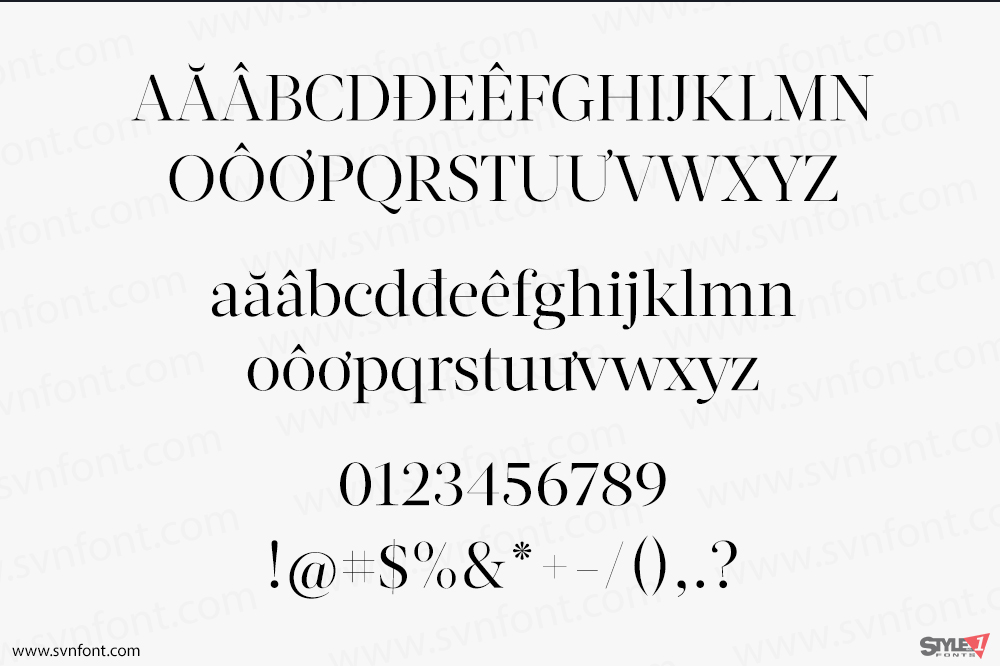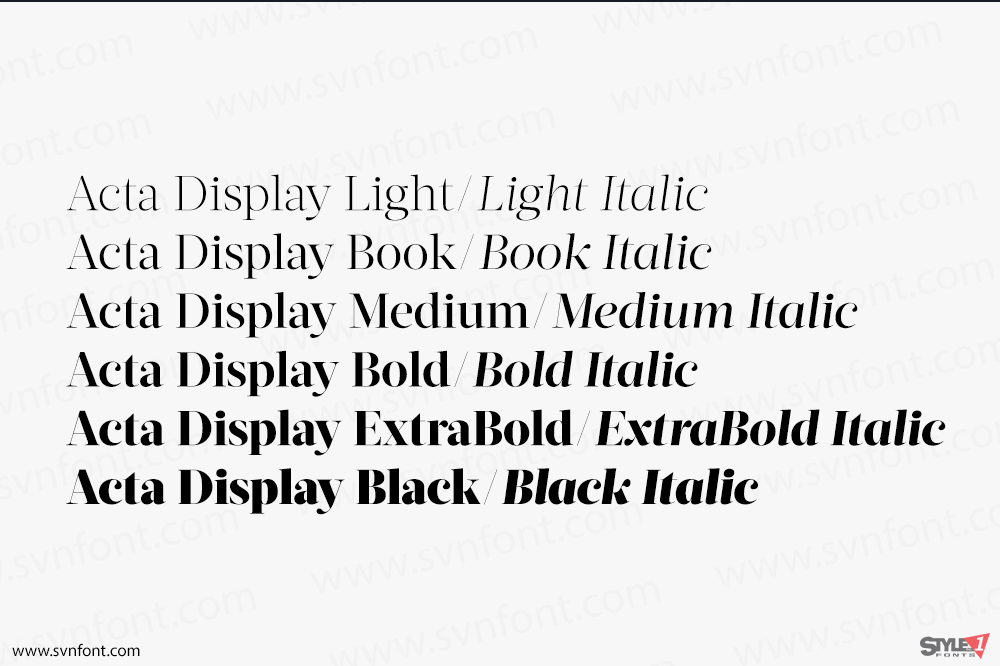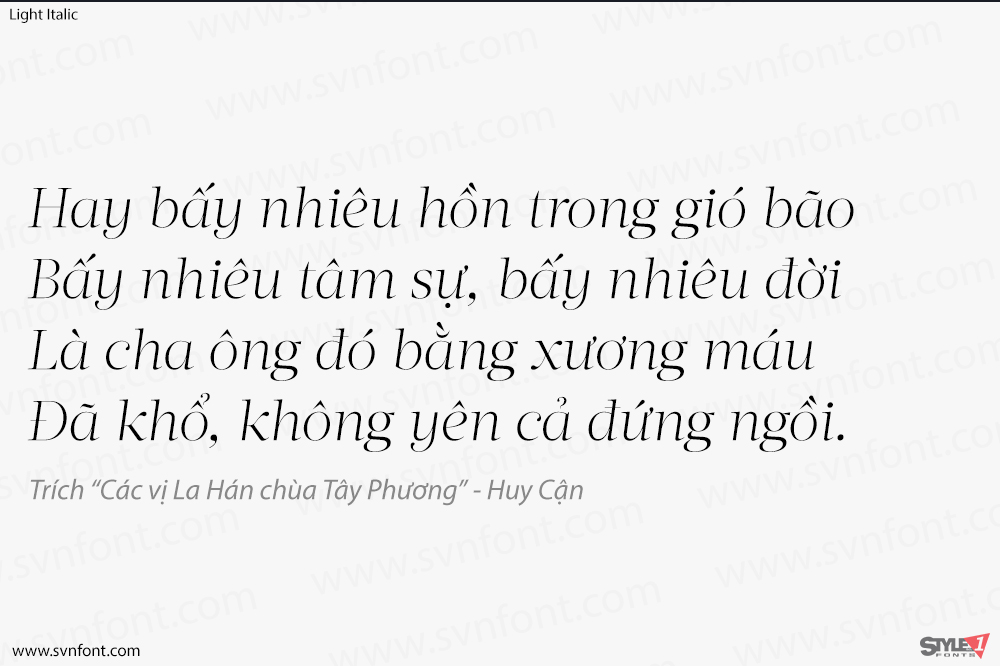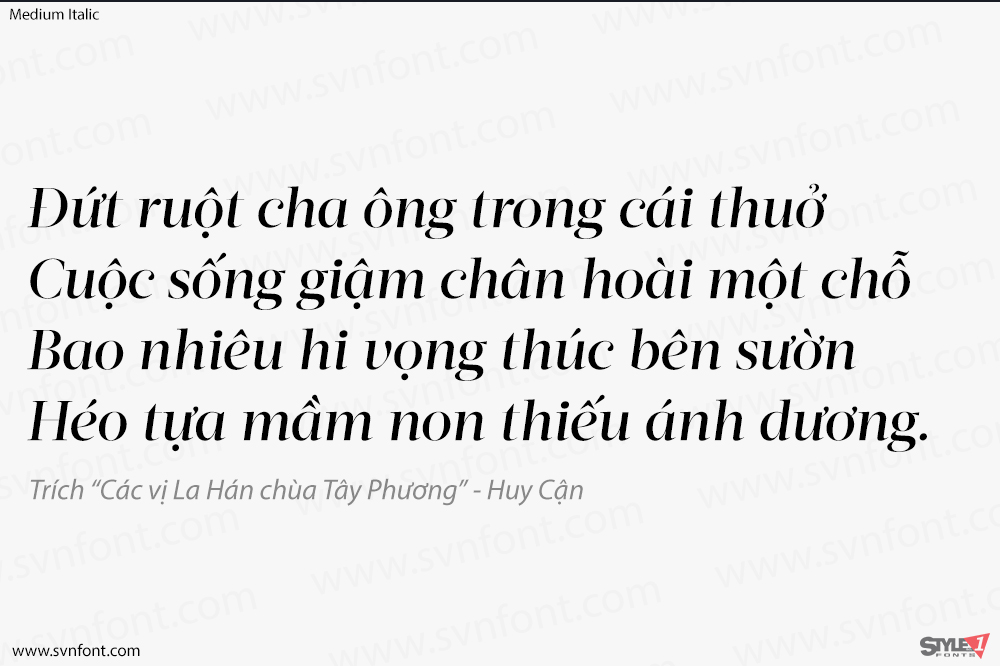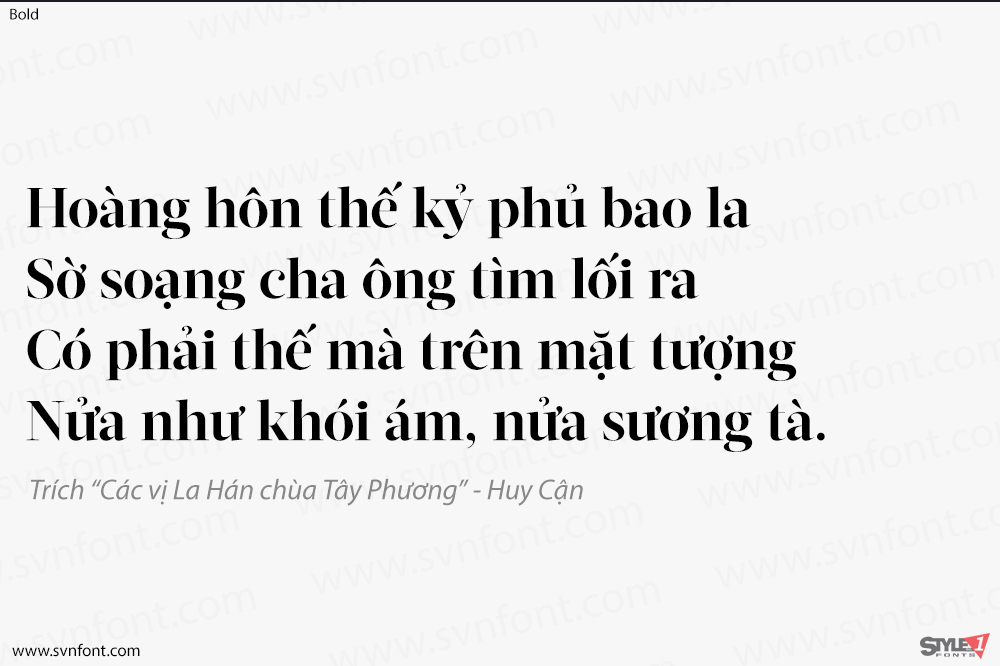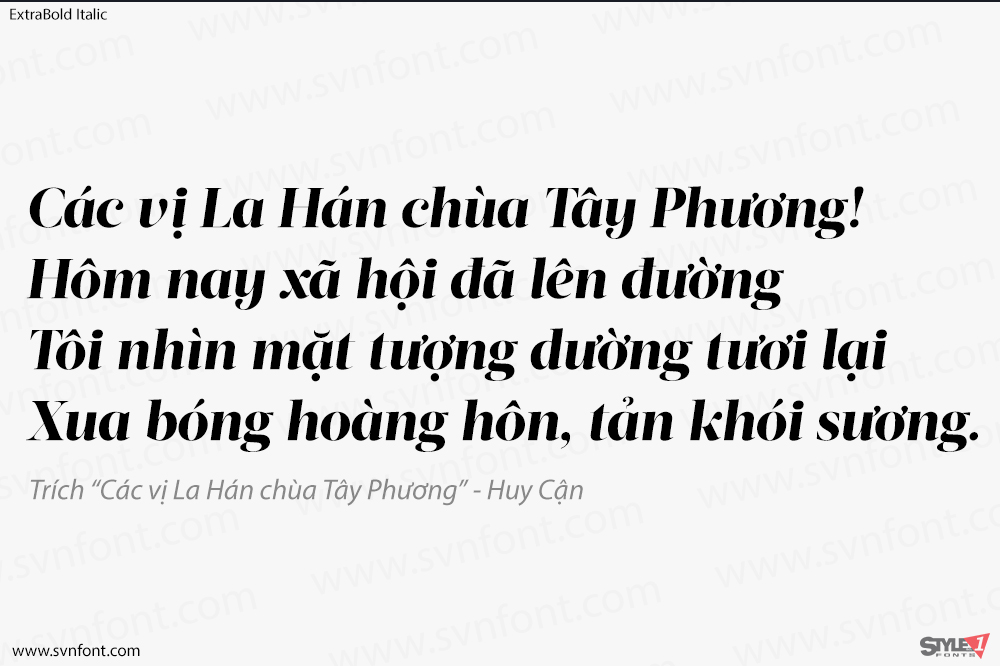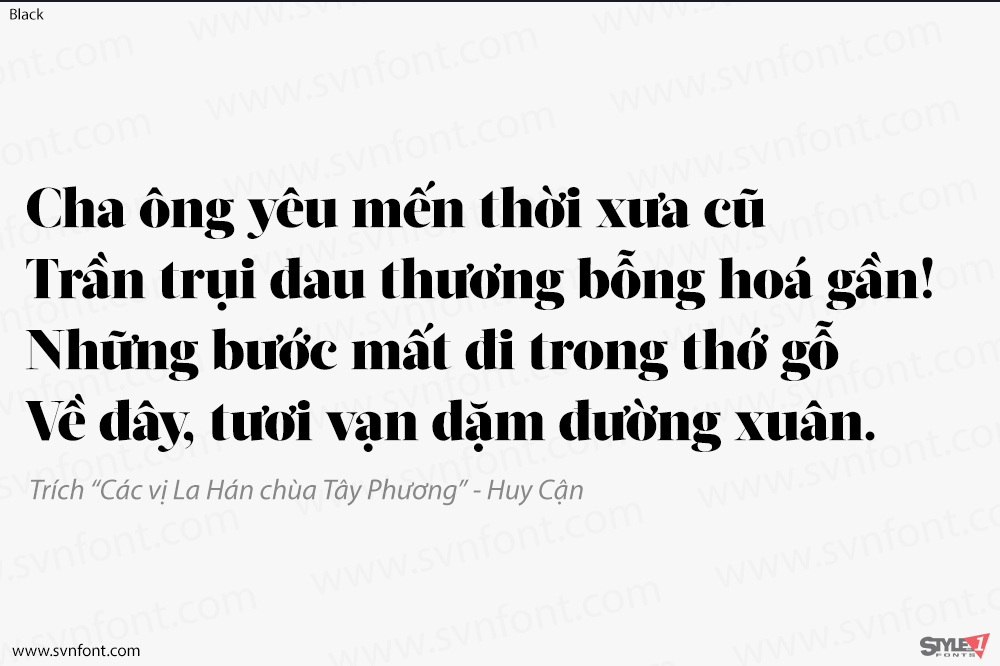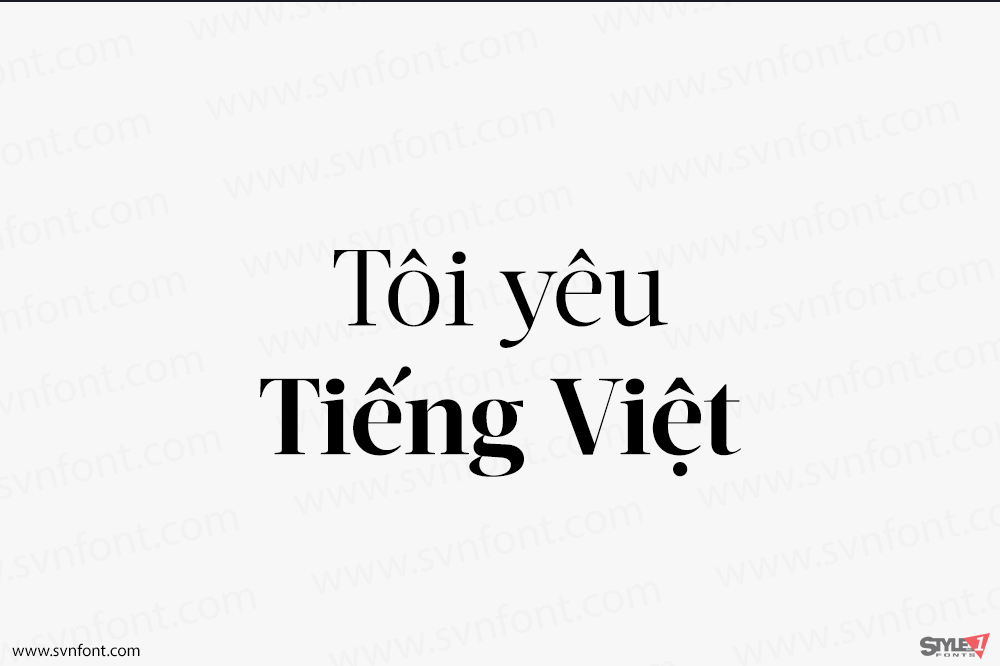
[Việt hóa] SVN-Acta Display (12 fonts)
First designed for chilean newspaper La Tercera in 2010, Acta family is a clean and fresh type system, while enough conservative for newspaper setting. The complete Acta Type System contains Acta and Acta Display both with six weights with matching italics; Acta Symbols with an amazing collection of symbols specially designed for newspapers and magazines and Acta Poster, a heavyweight version, elegant and eye catching in three styles with plenty of ligatures and alternates.
Nhà thiết kế: Dino dos Santos
Nhà phát hành: DSType